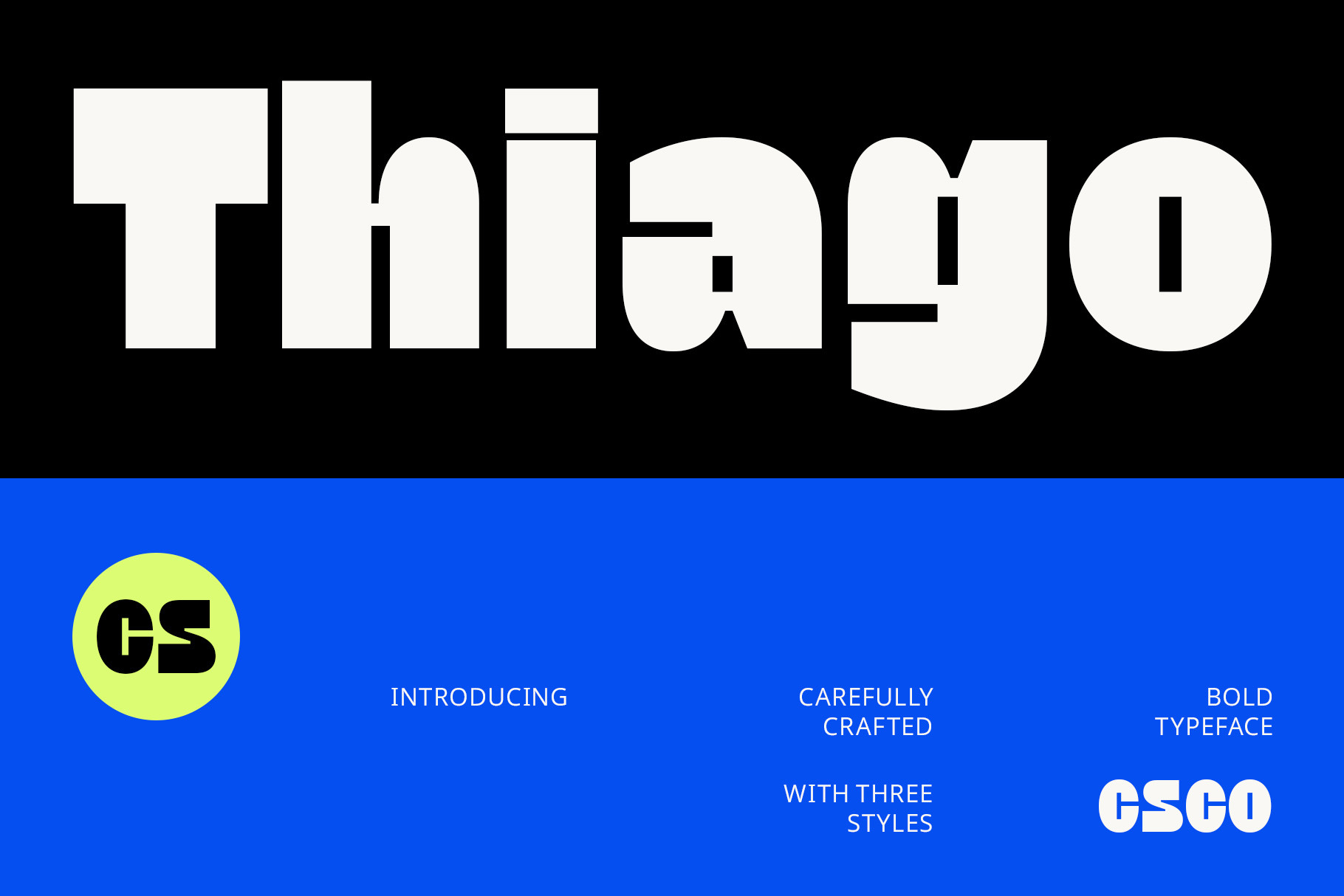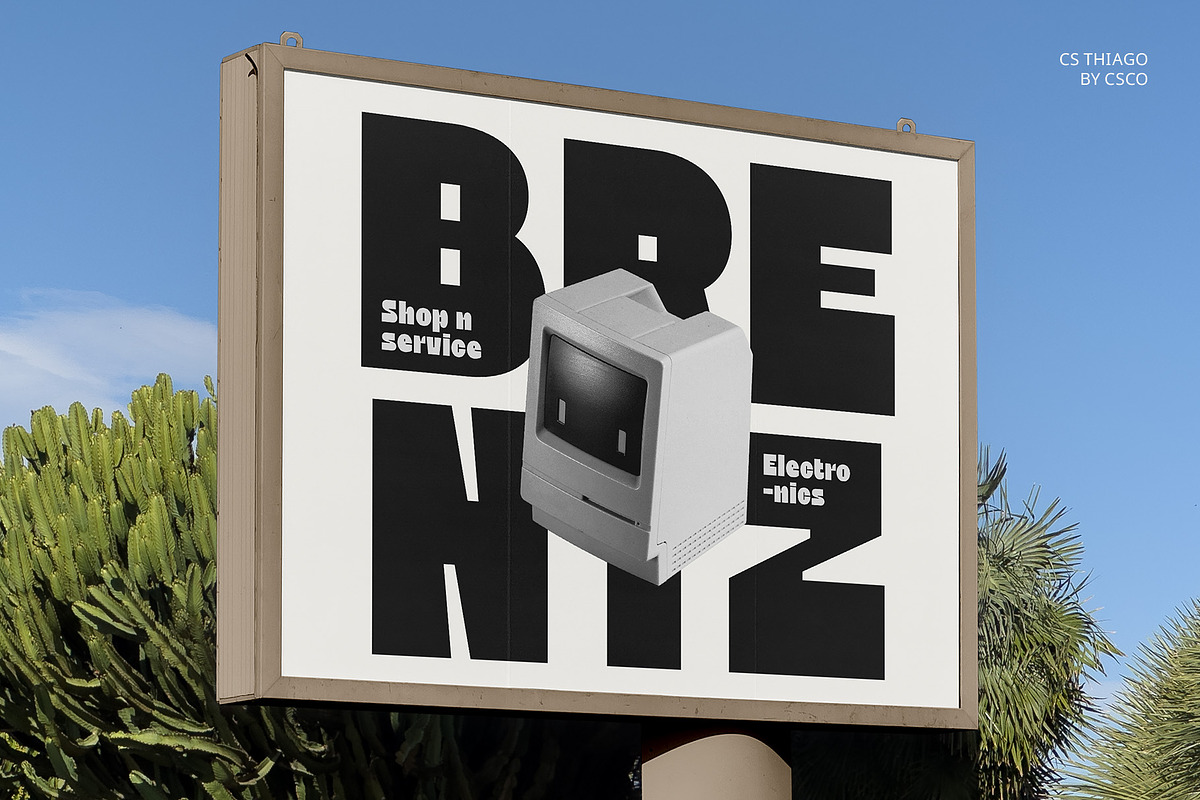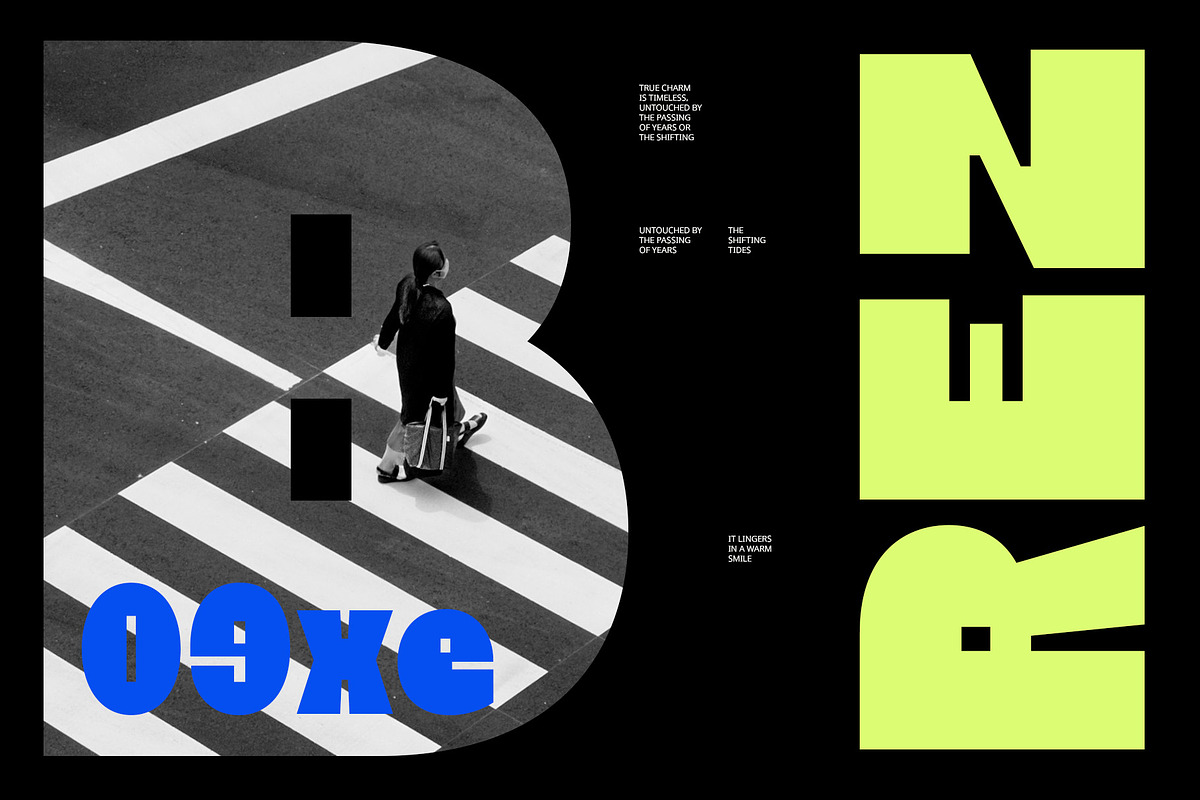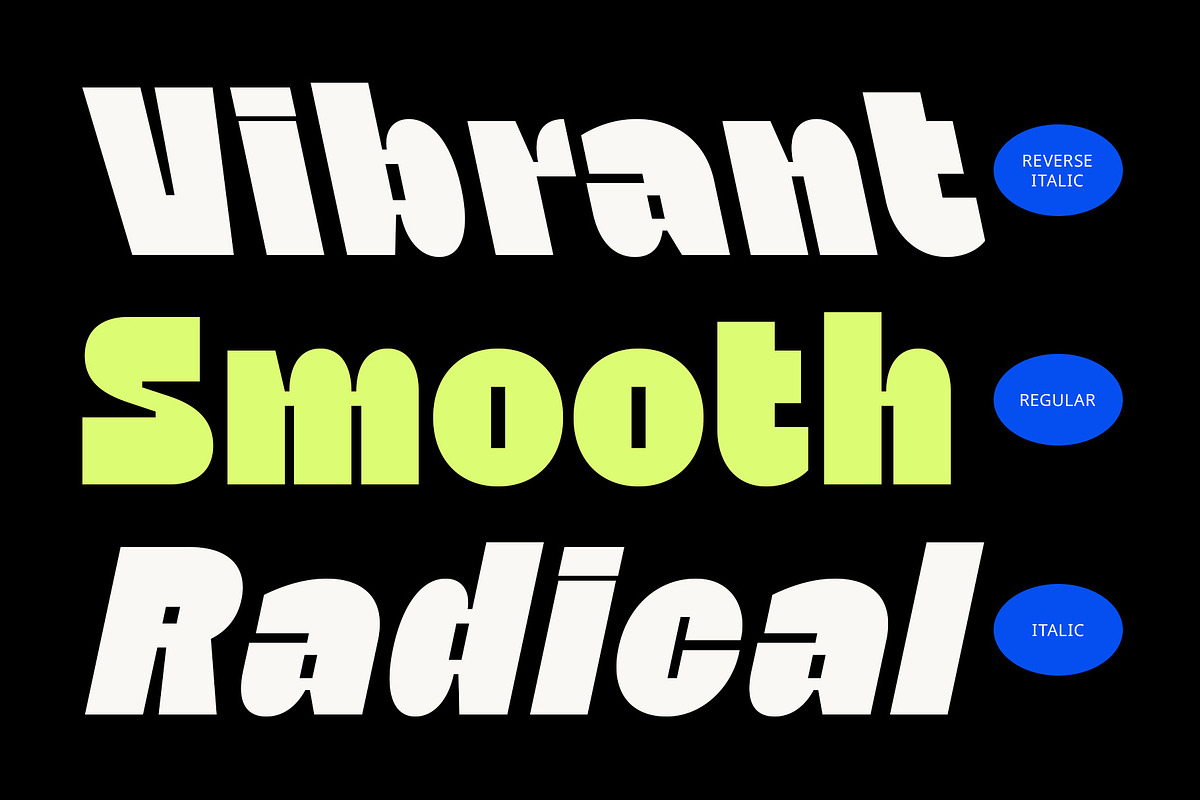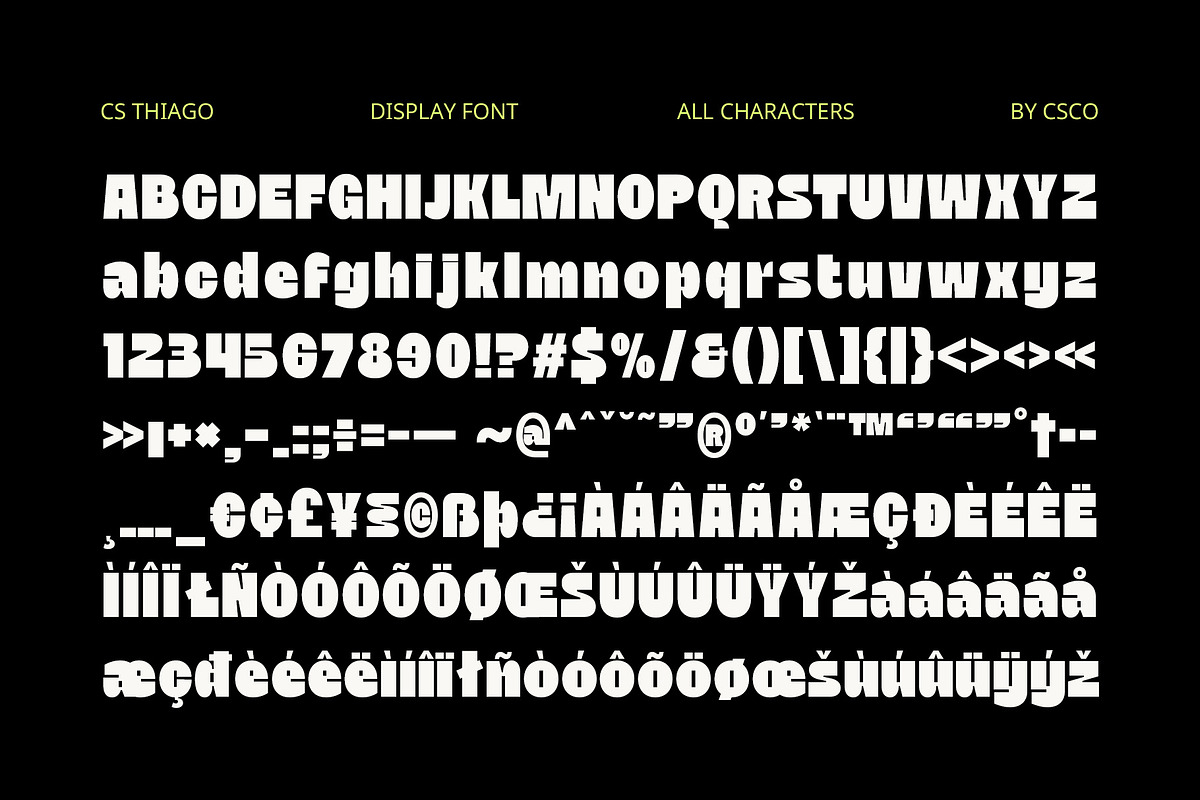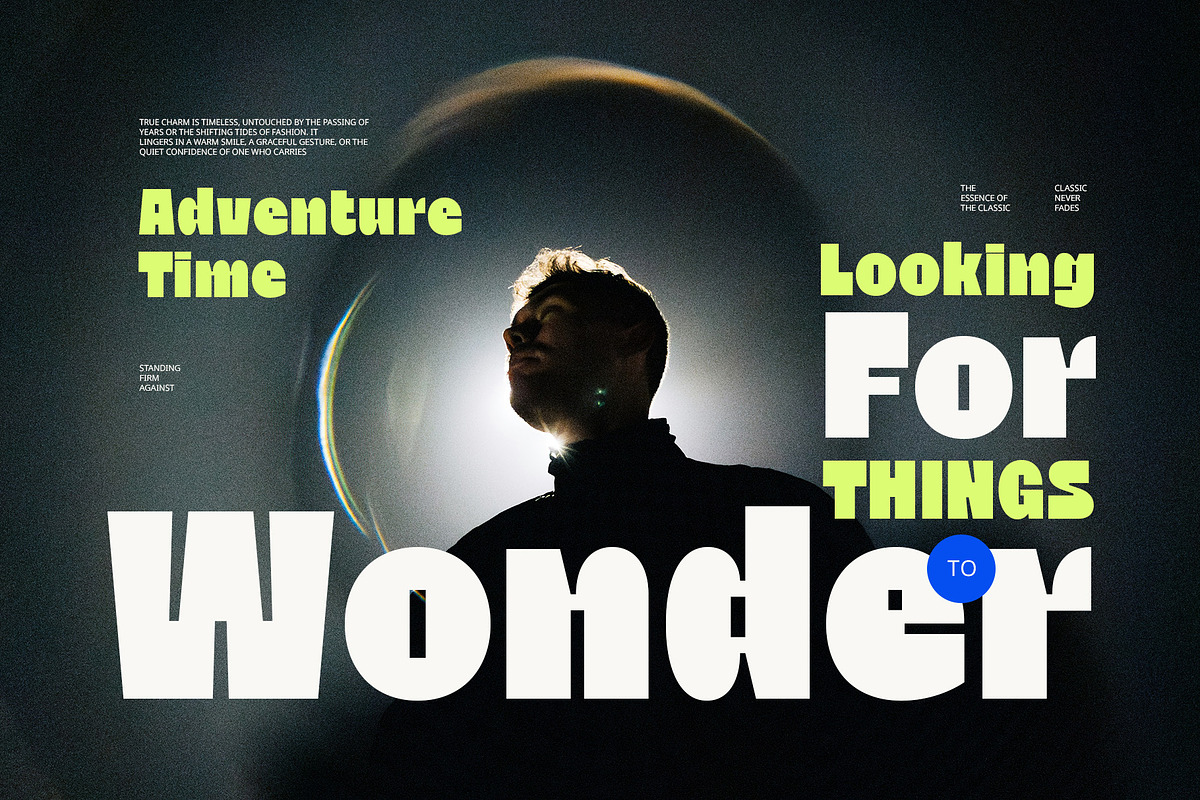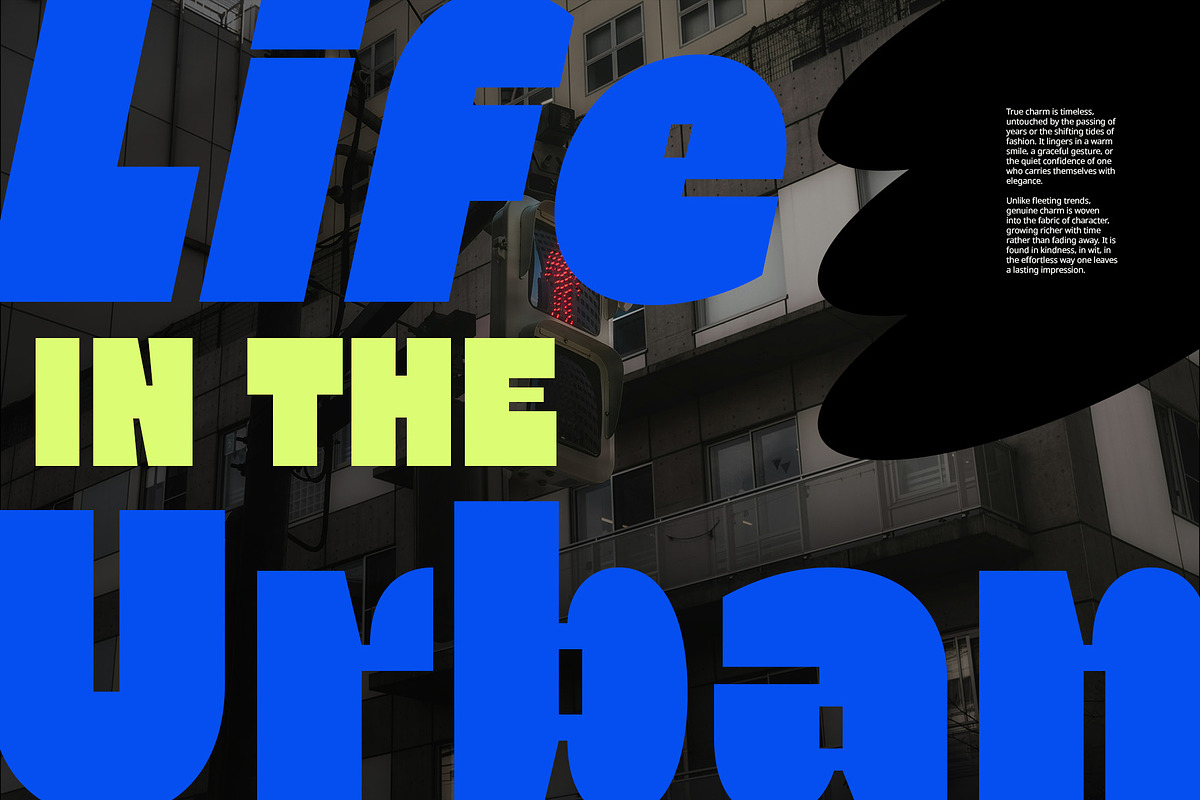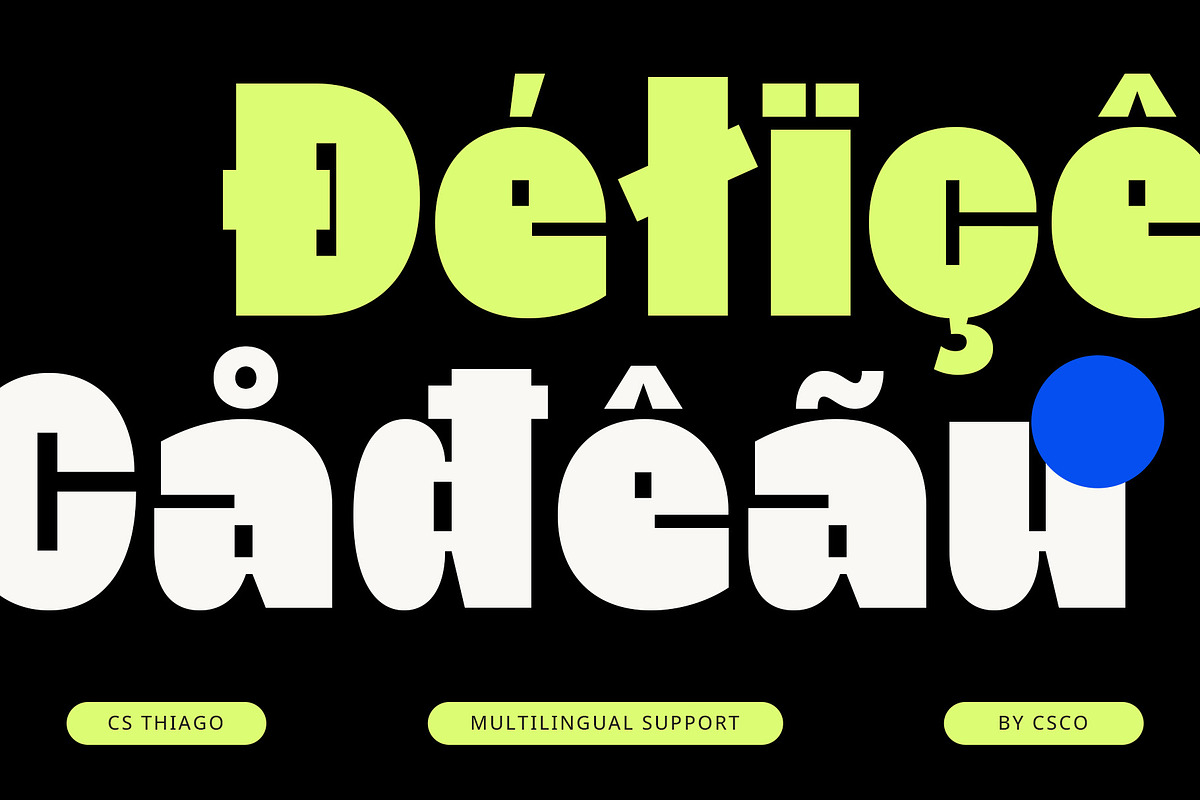
CS Thiago – Bold Font
CS Thiago – Bold Font: Bold Sans Serif with a Funky, Expressive Twist
Energetic and Contemporary Style CS Thiago – Bold Sans Serif Font is the perfect fusion of strength and playful energy. Combining the solid, dependable form of a sans-serif with dynamic, funky details, it creates a bold and modern aesthetic that radiates confidence and style.
Playful Yet Powerful Letterforms Far from rigid or conventional, the letterforms of CS Thiago are full of life. Each character is crafted with a sense of movement, offering a playful and dynamic quality that grabs attention. The unconventional design breaks free from the typical, giving your projects an energetic vibe that’s perfect for projects that need a fresh and contemporary look.
Ideal for Creative and Modern Design CS Thiago is a versatile font suited for a variety of contemporary design projects. Its bold presence makes a statement, while its playful forms keep the design lively and inviting.
Stand Out with Style and Impact Every design needs a font that can capture attention, and CS Thiago is built to do just that. Whether used for impactful headlines, unique logos, or bold promotional materials, this font doesn’t just speak—it shouts with style. It’s the perfect choice for anyone looking to bring energy, modernity, and a bit of personality to their designs.